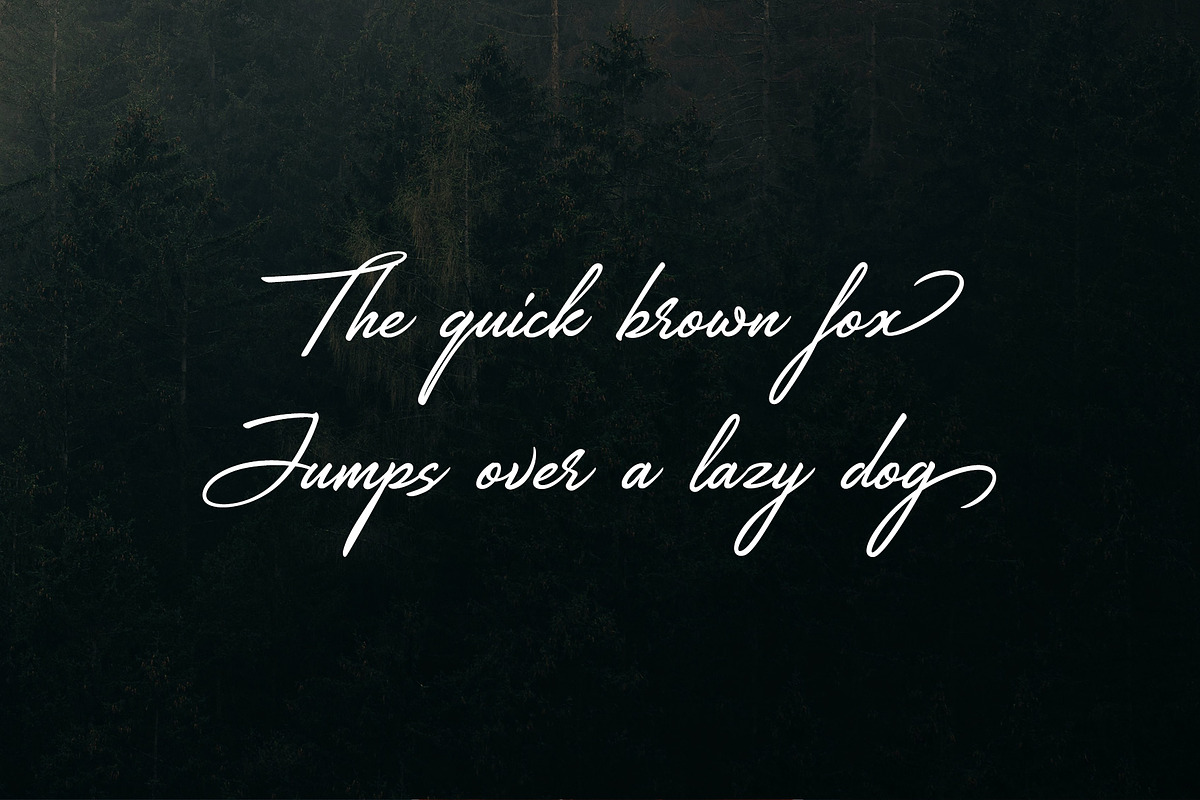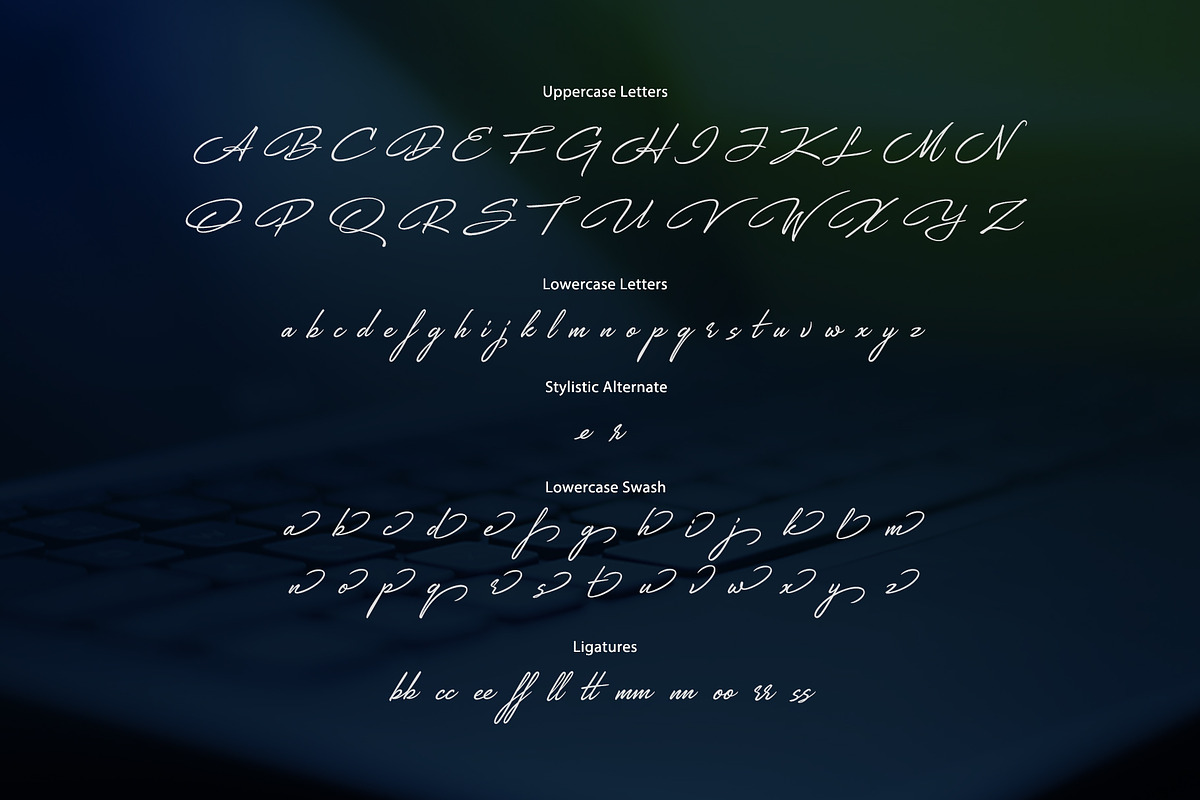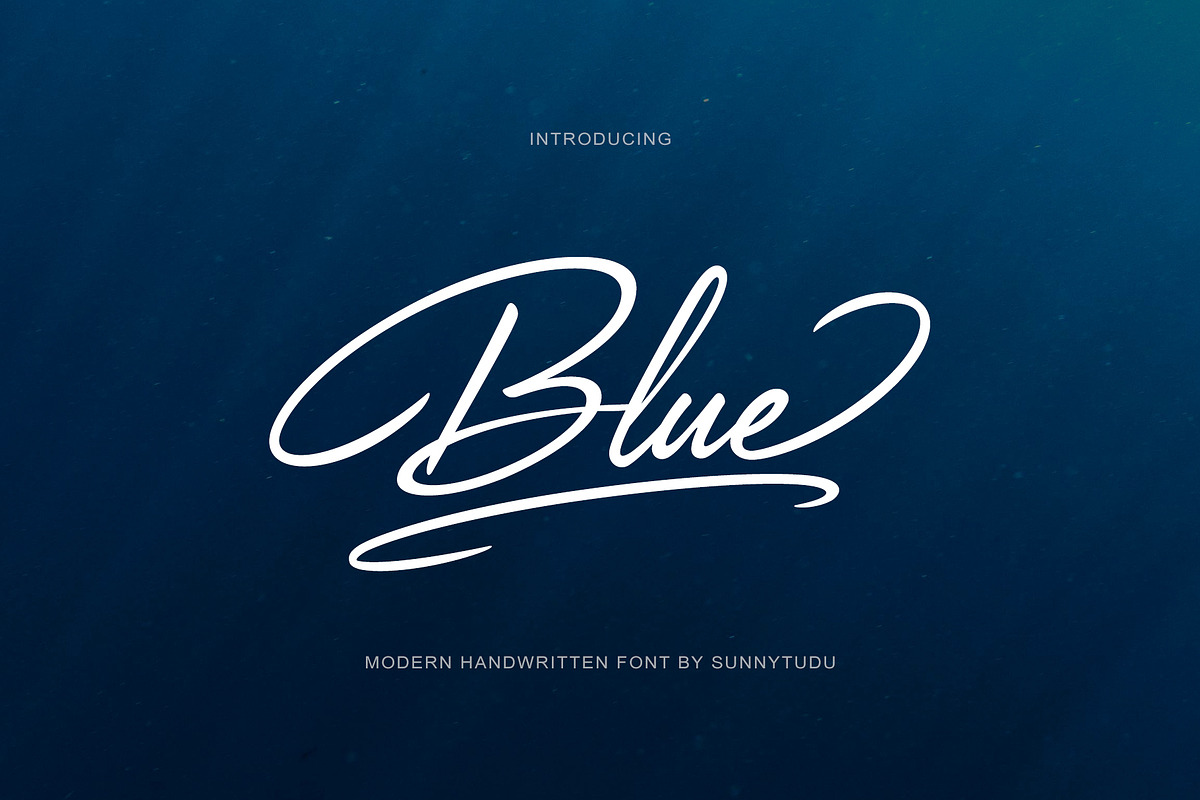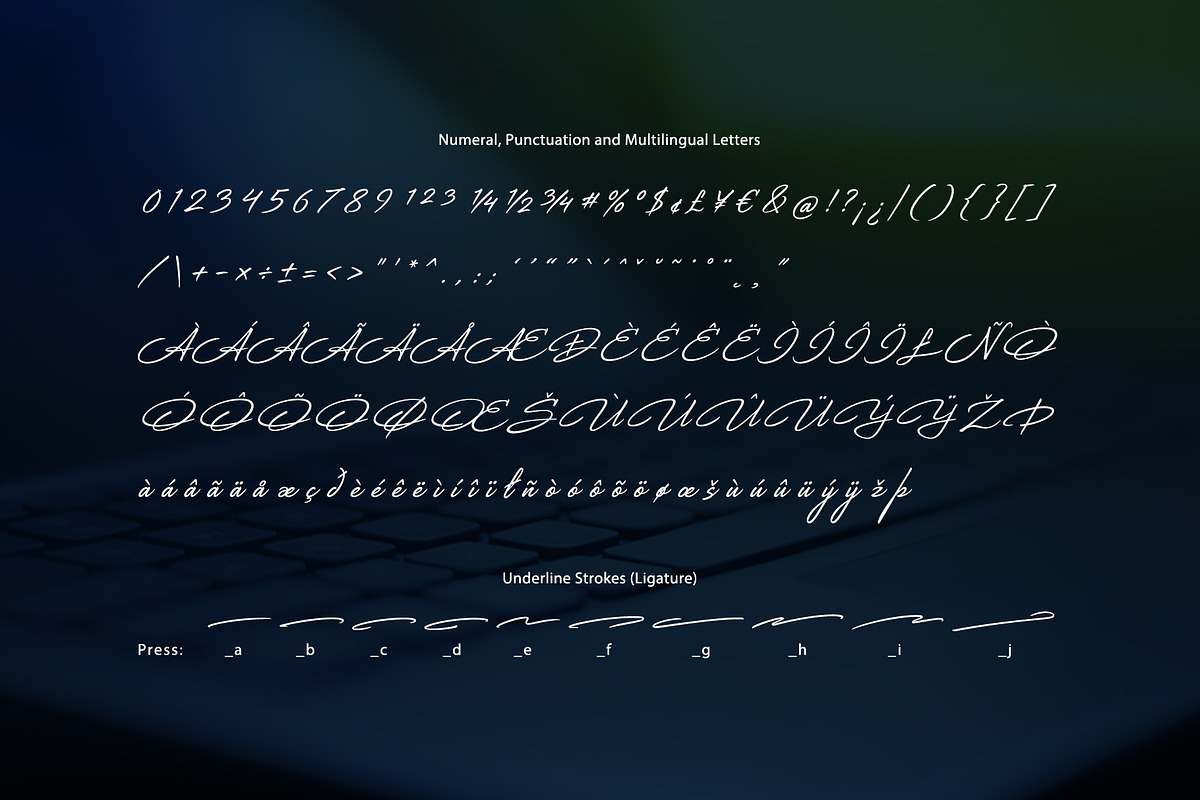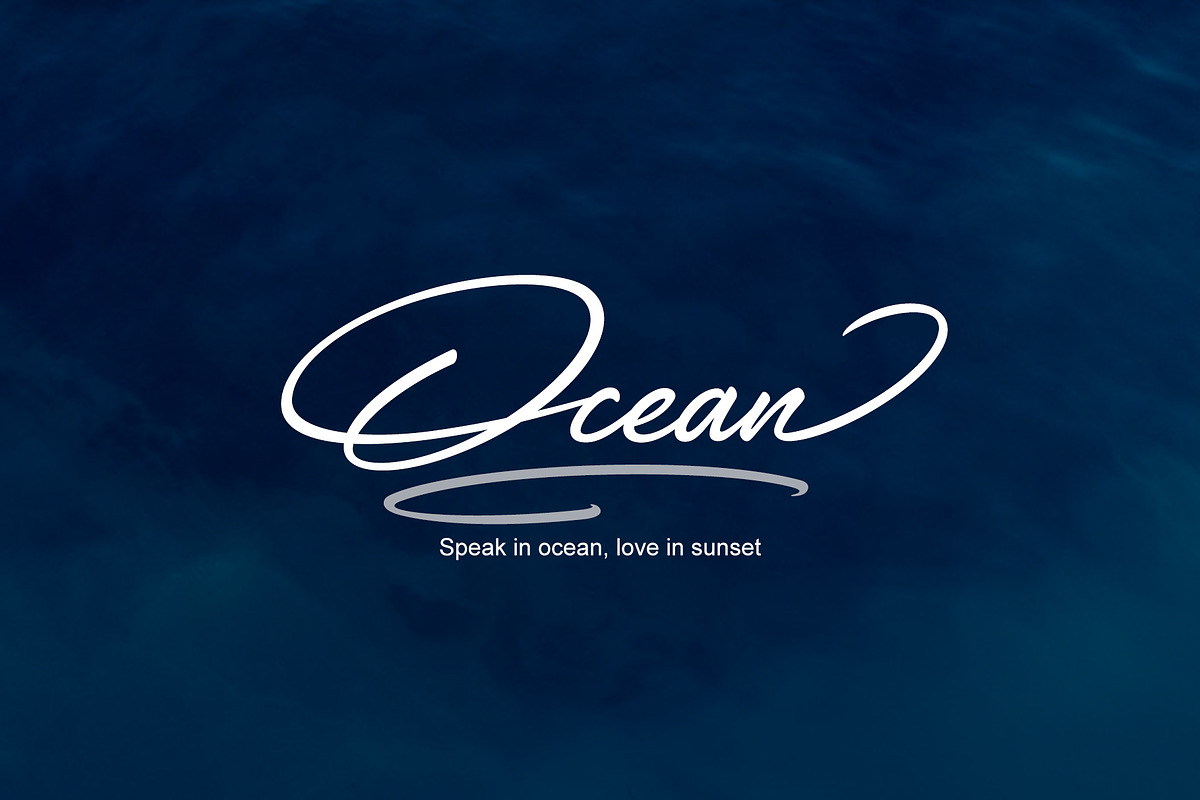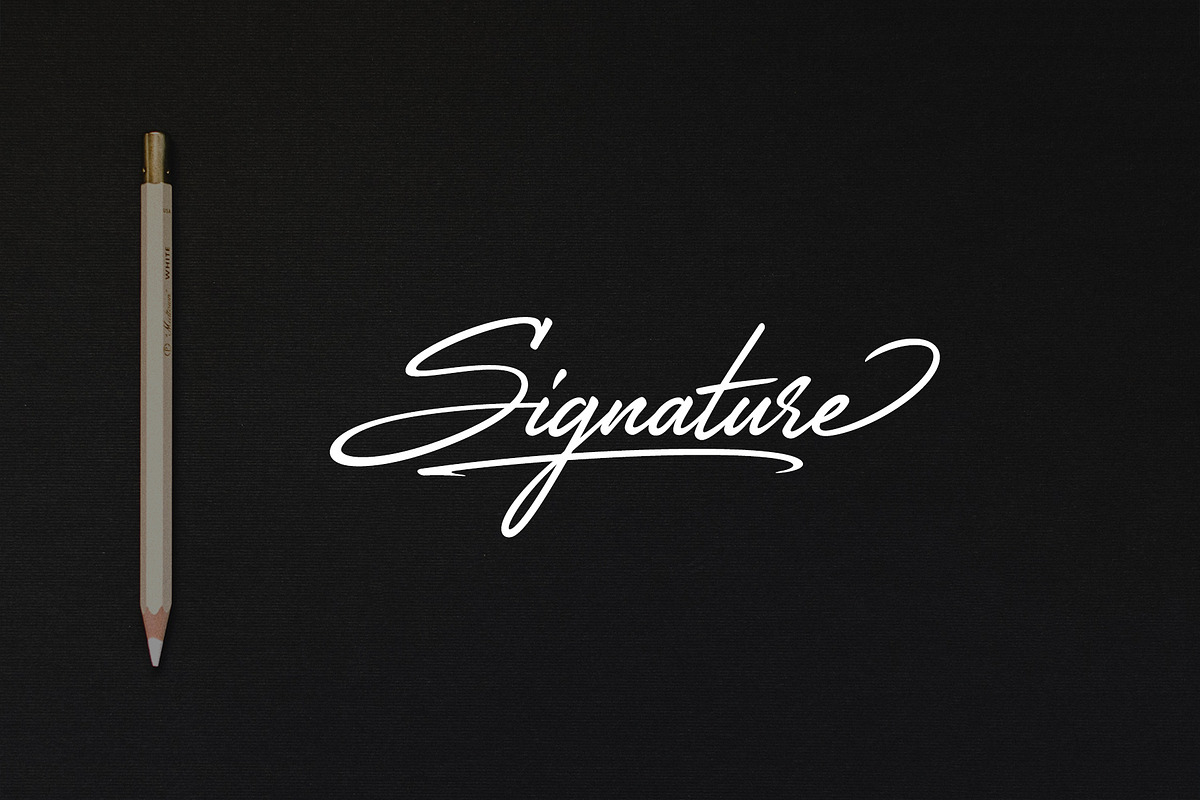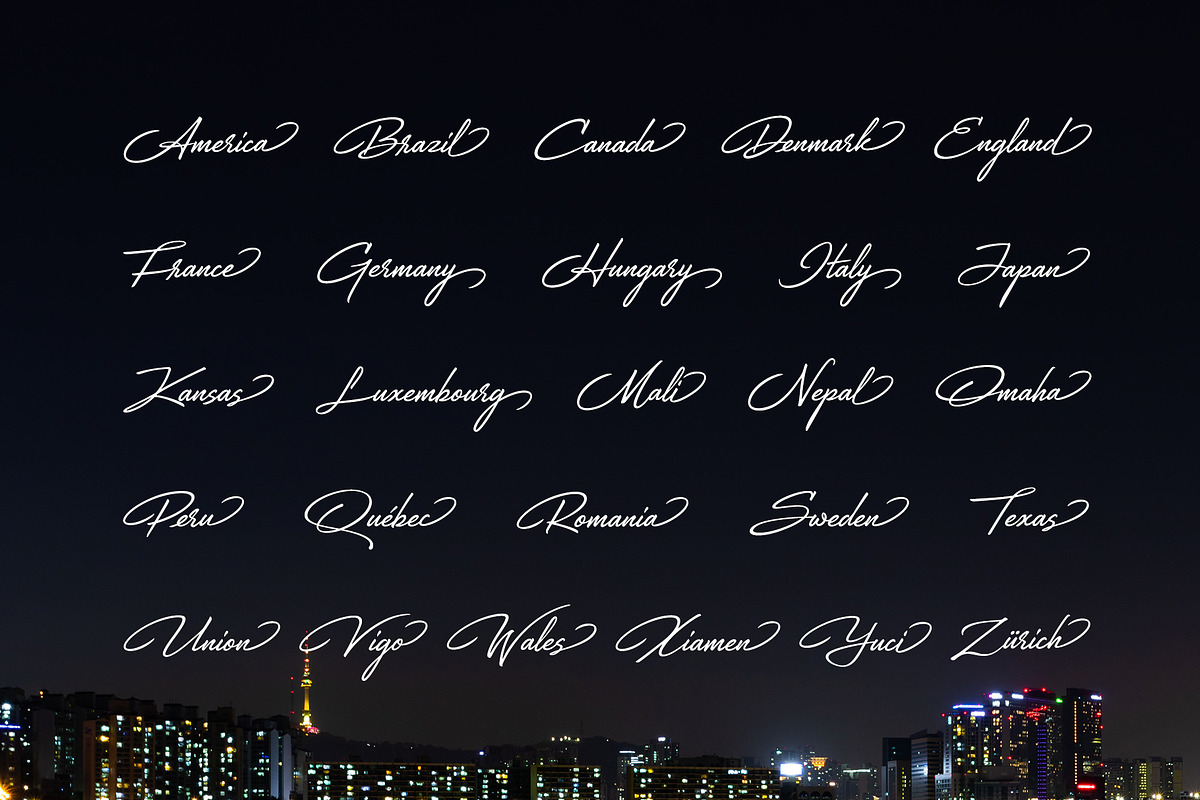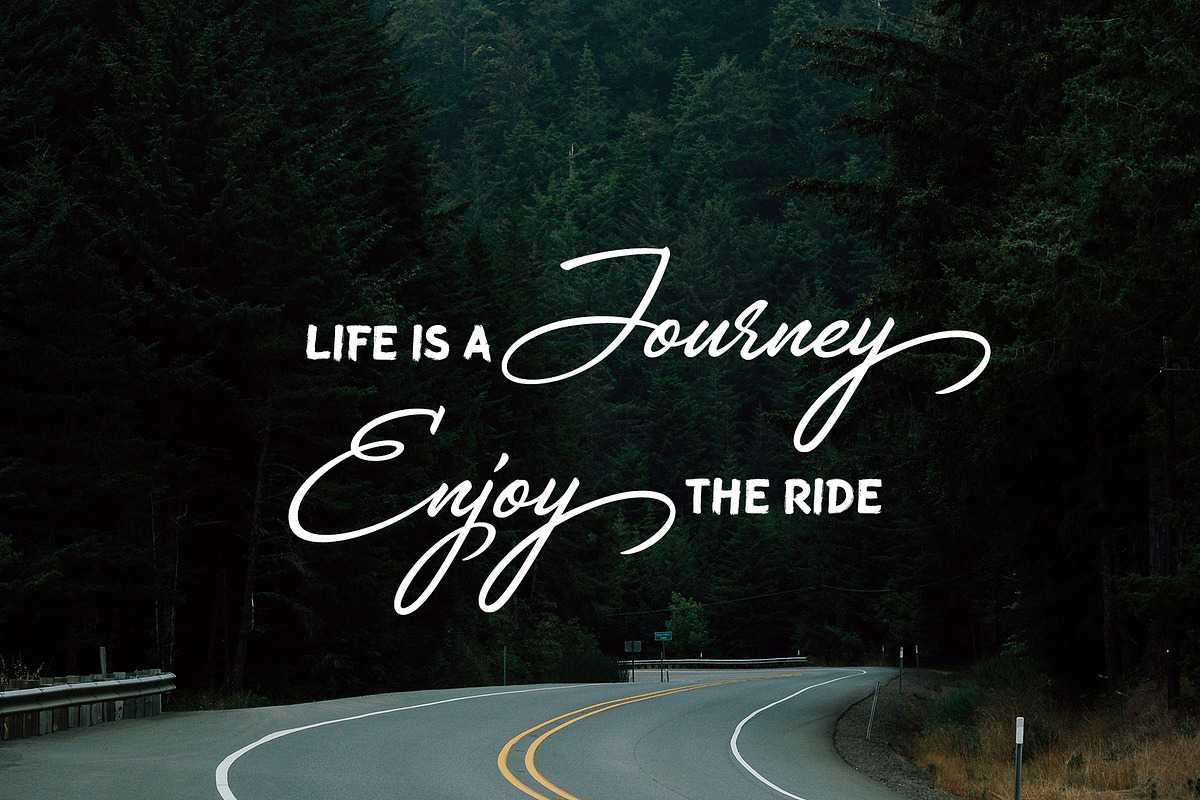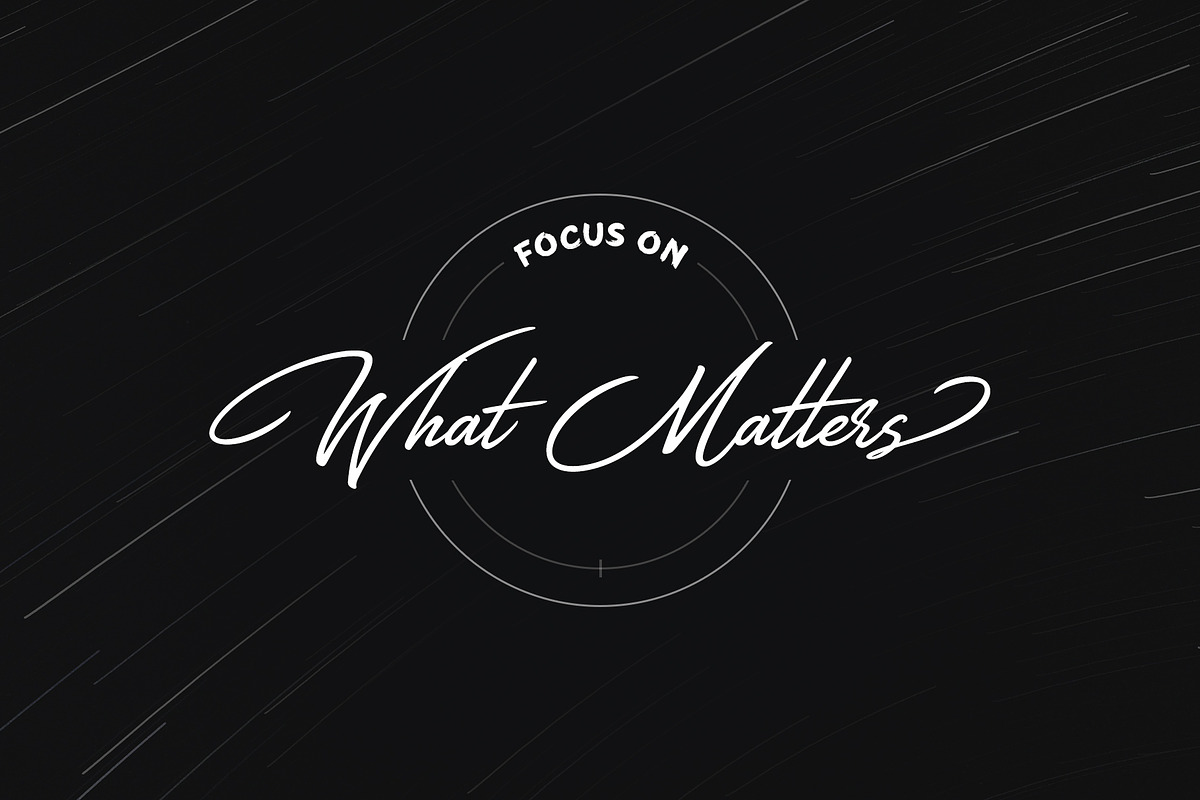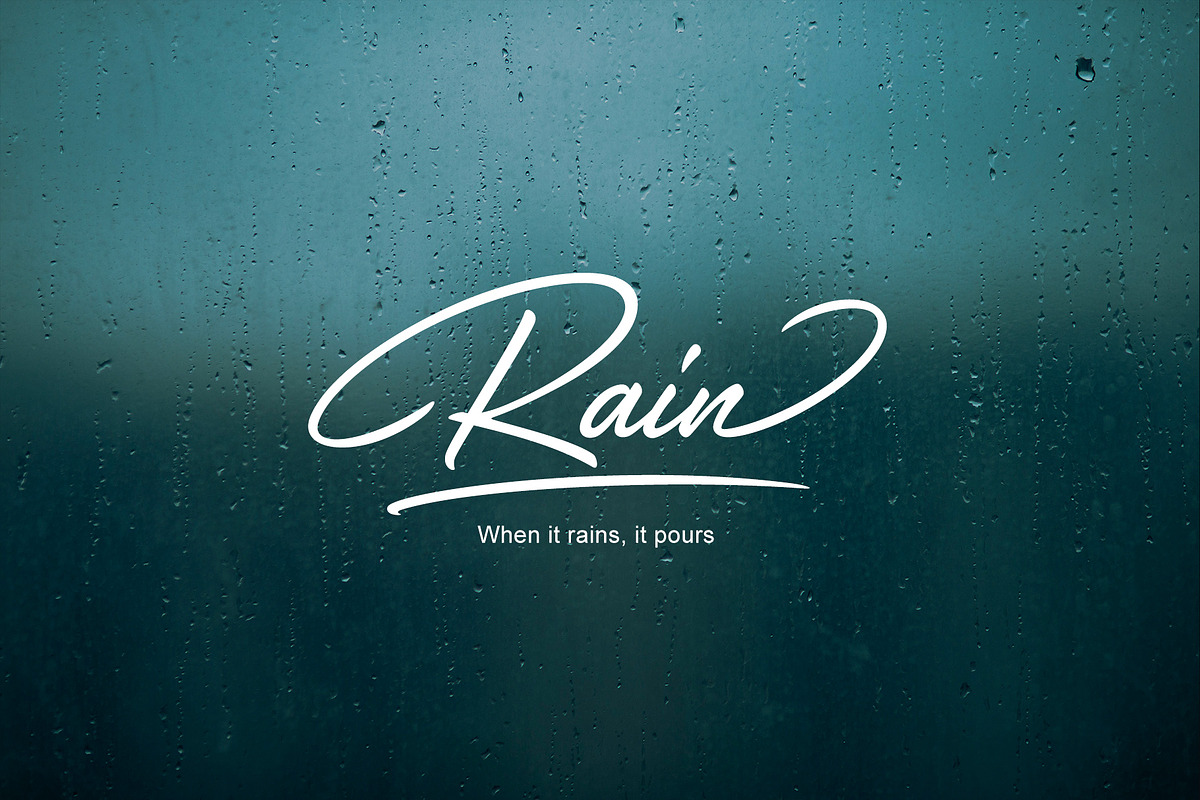
Blue Handwritten Font
Blue is a nice handwritten font. It gives a complete authentic feel on your text.
Total 247 glyphs available including alphabets, numerals, punctuation, ligature, lowercase swash and multilingual characters.
To type underline strokes press: _a _b _c etc. (keep the 'ligature' button on)